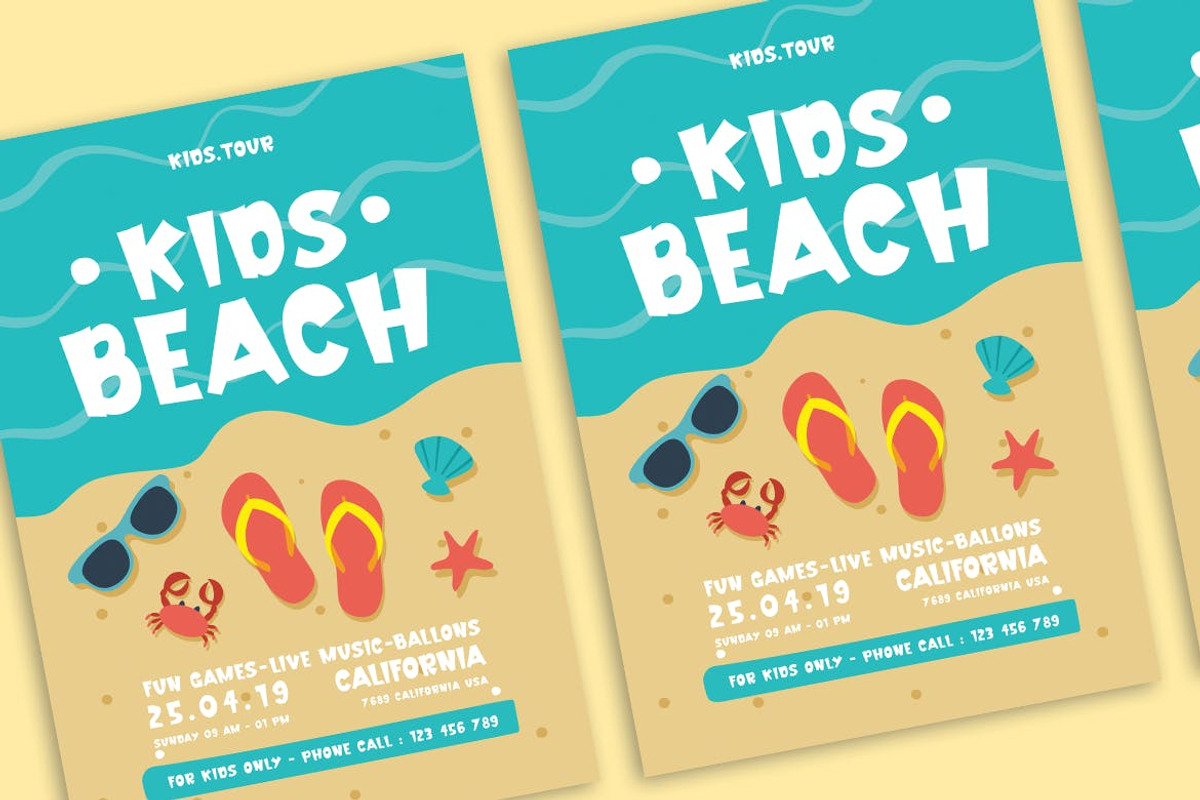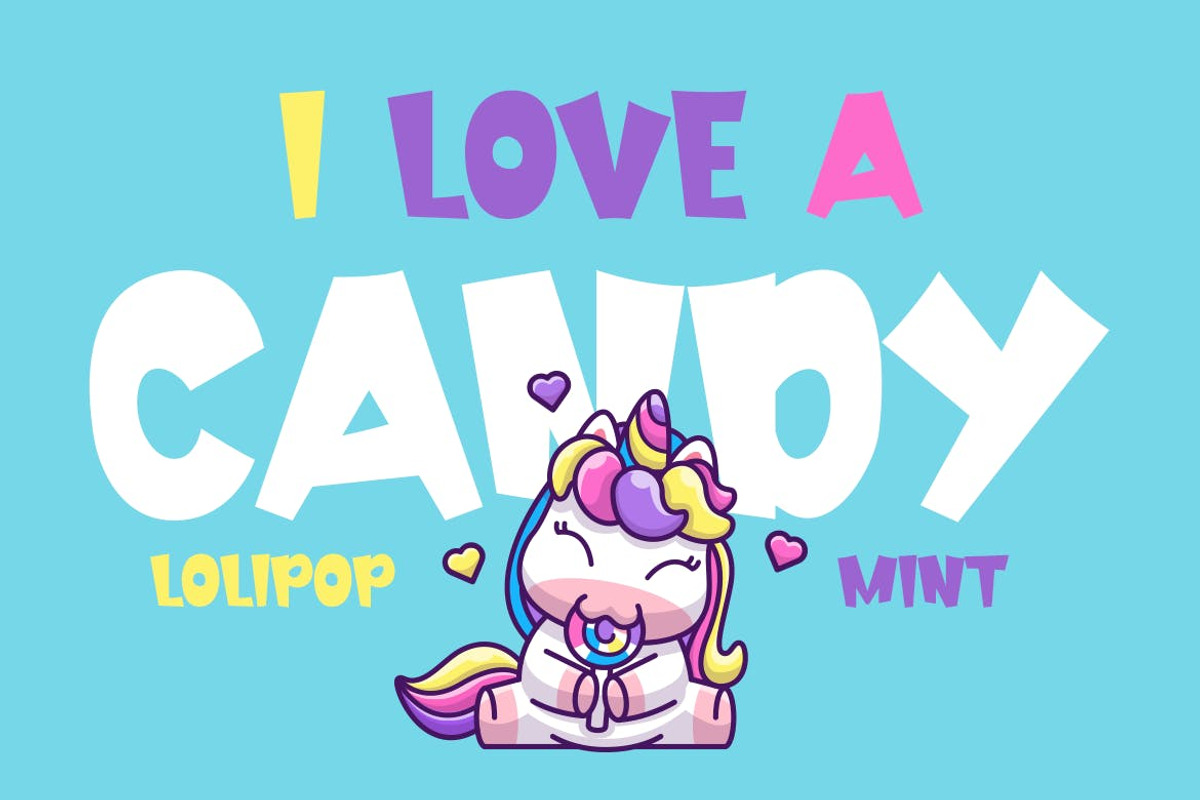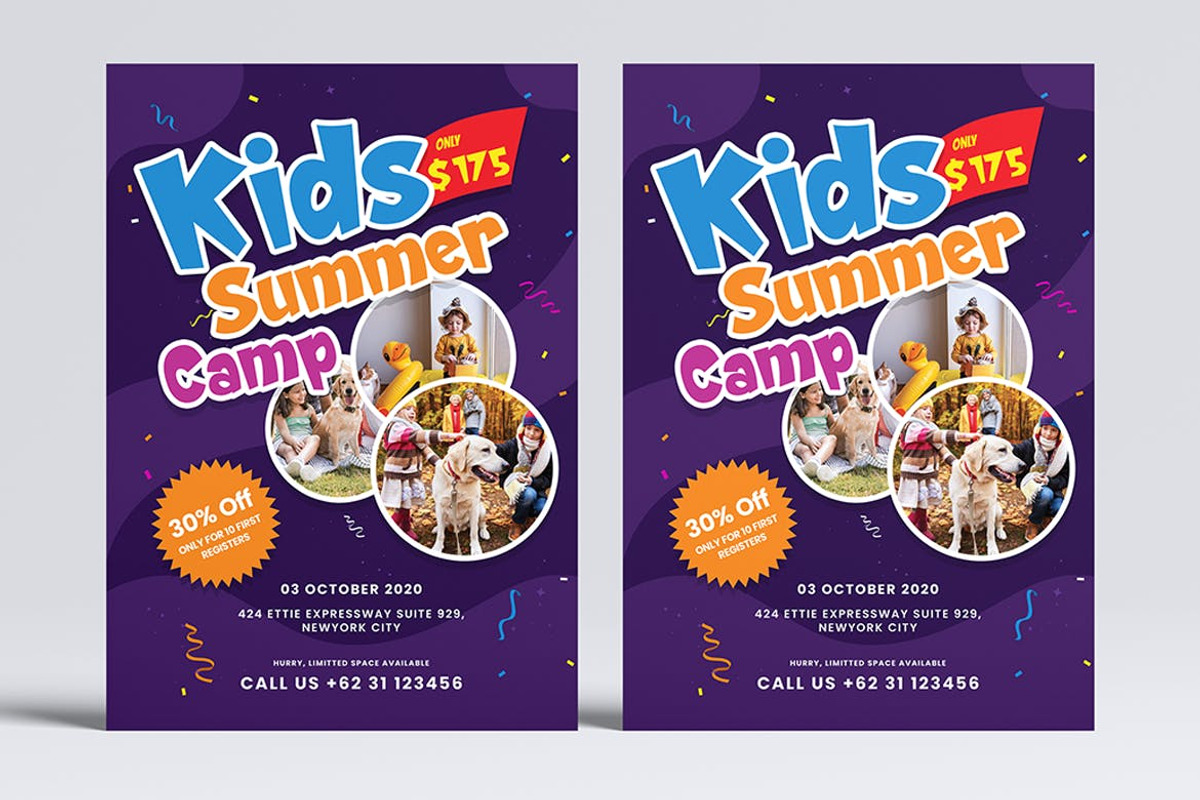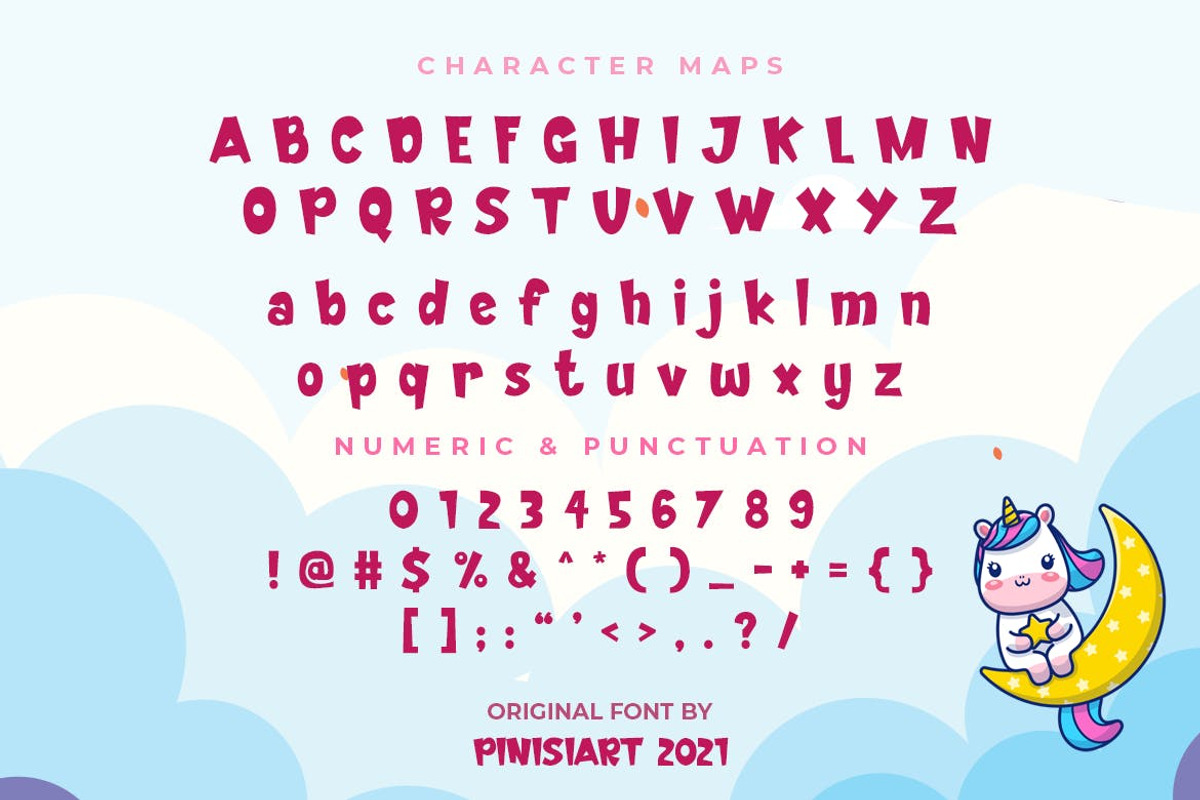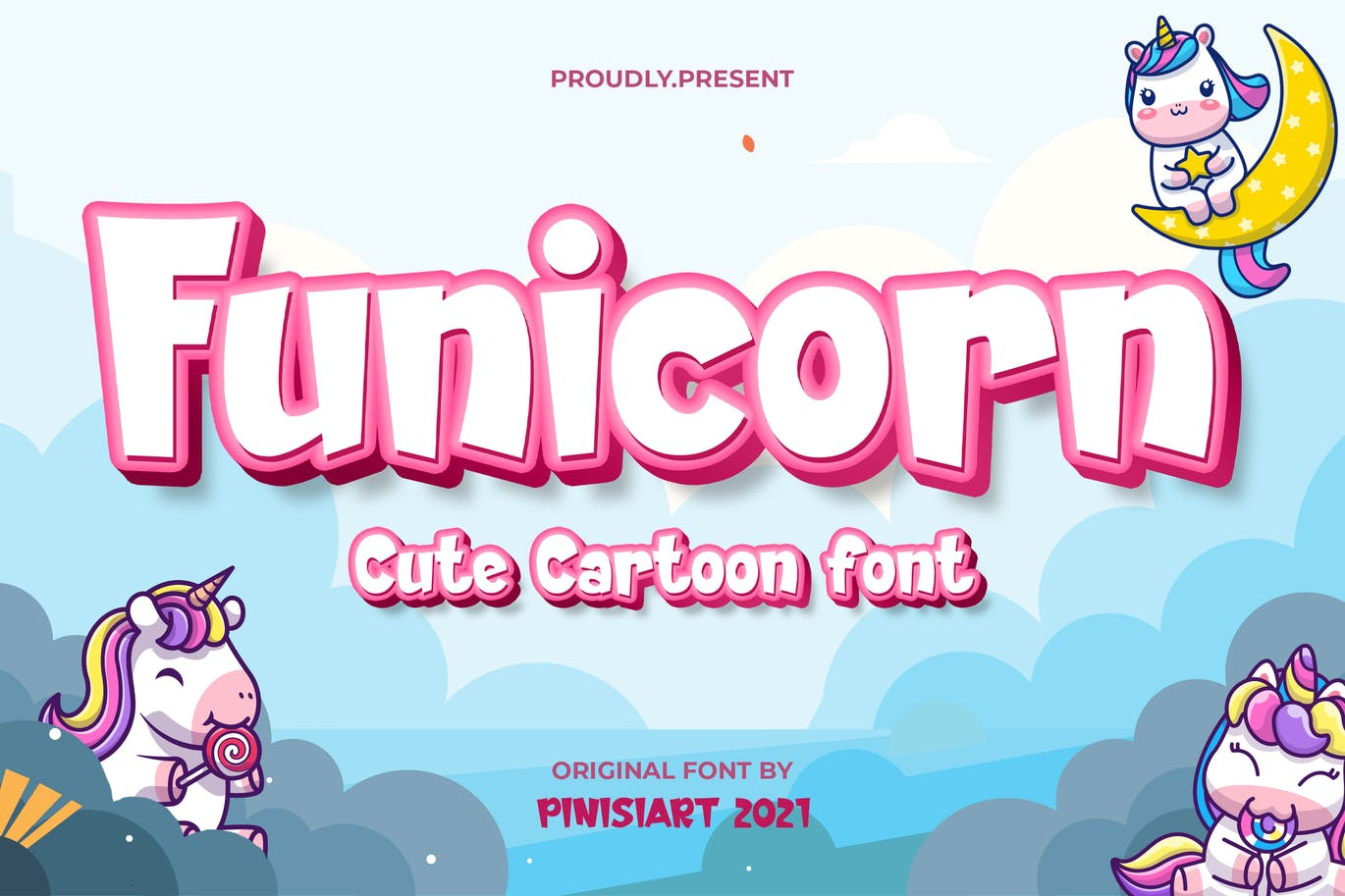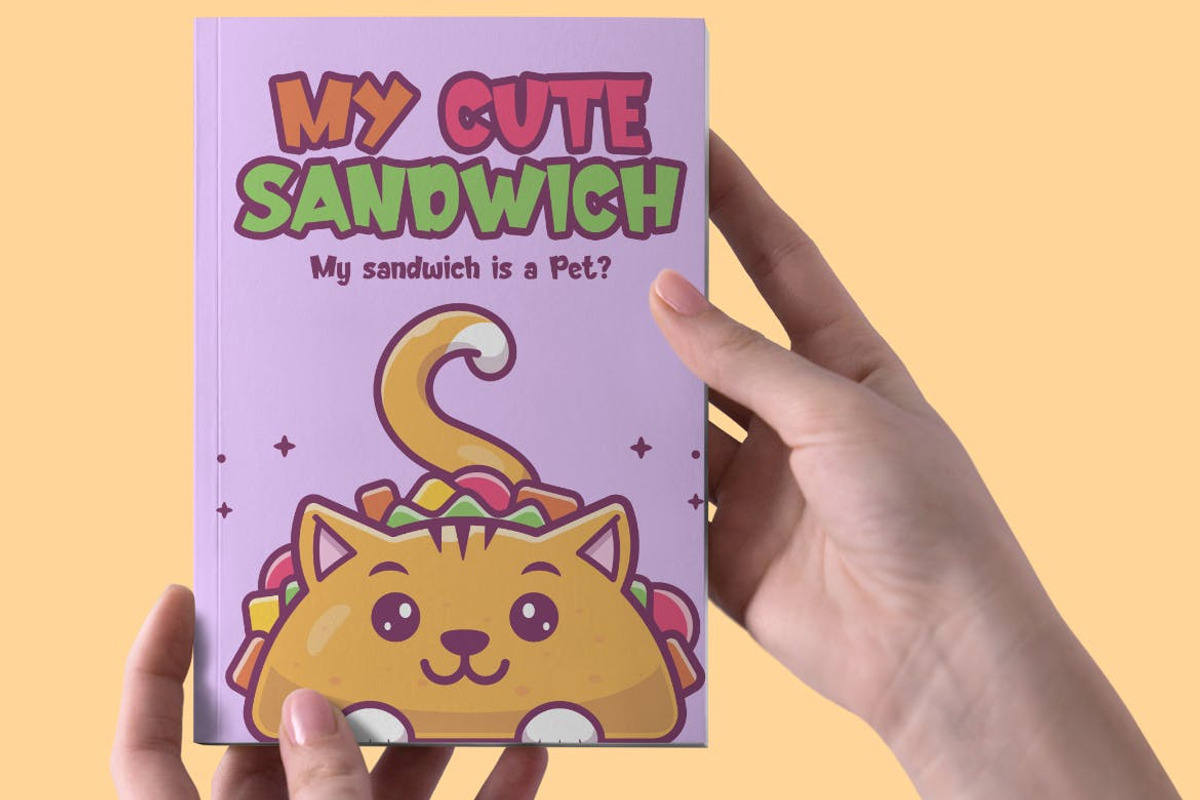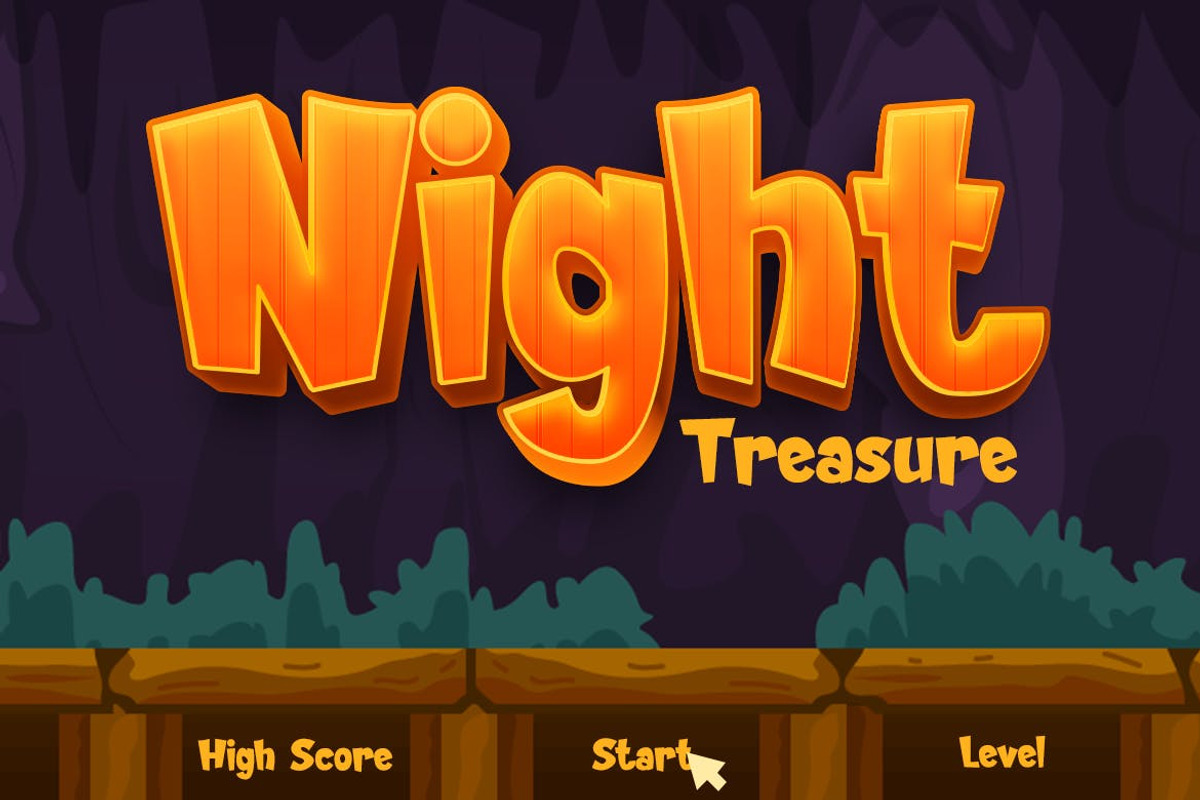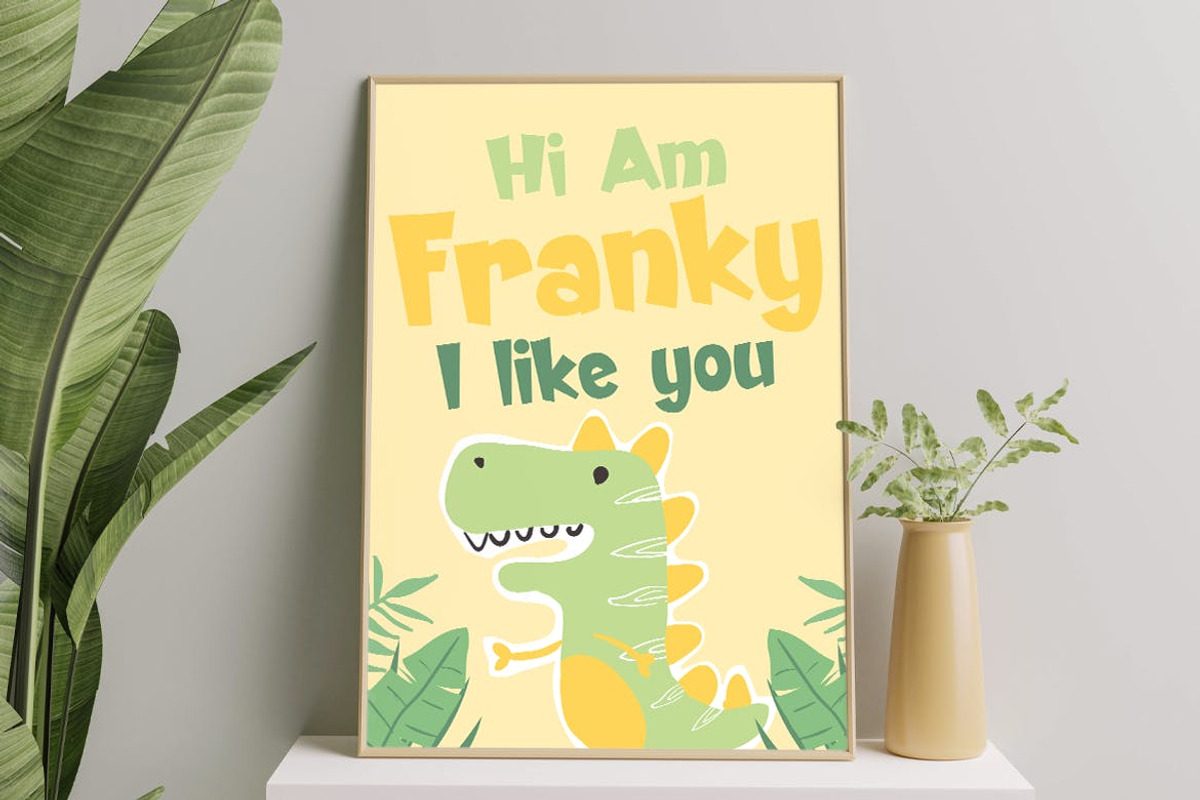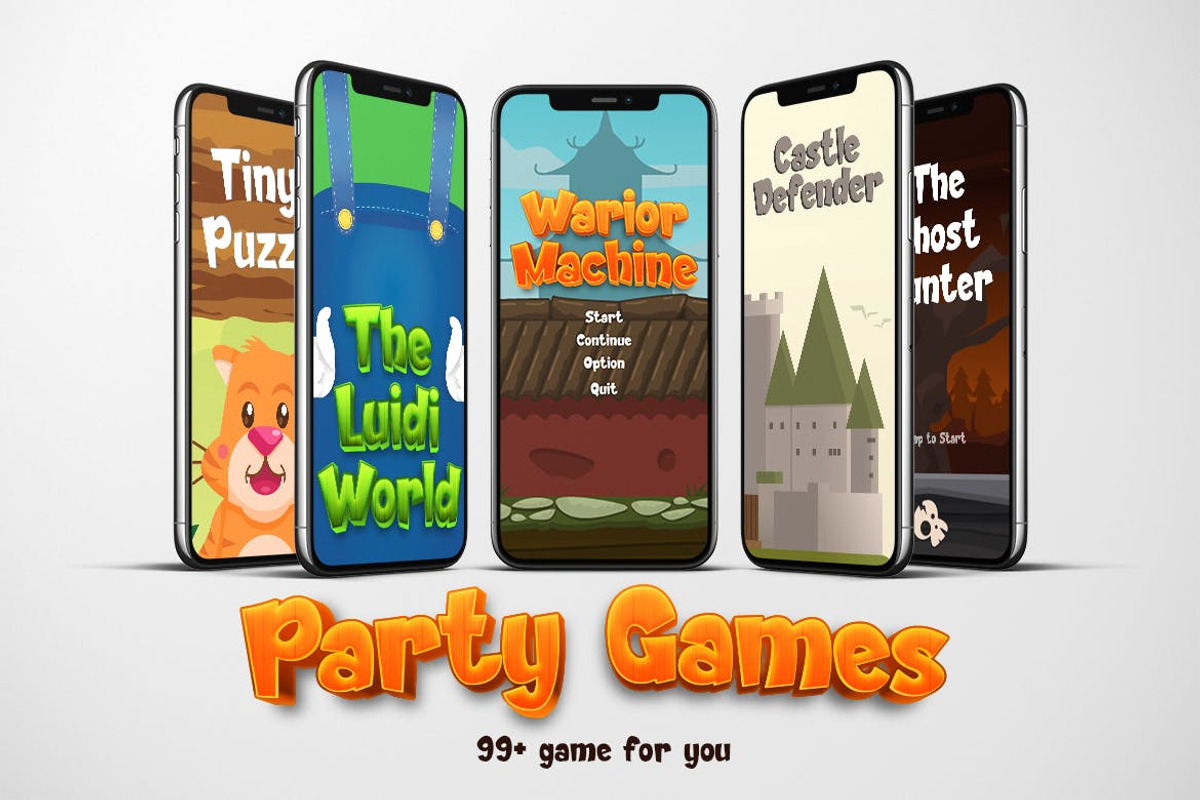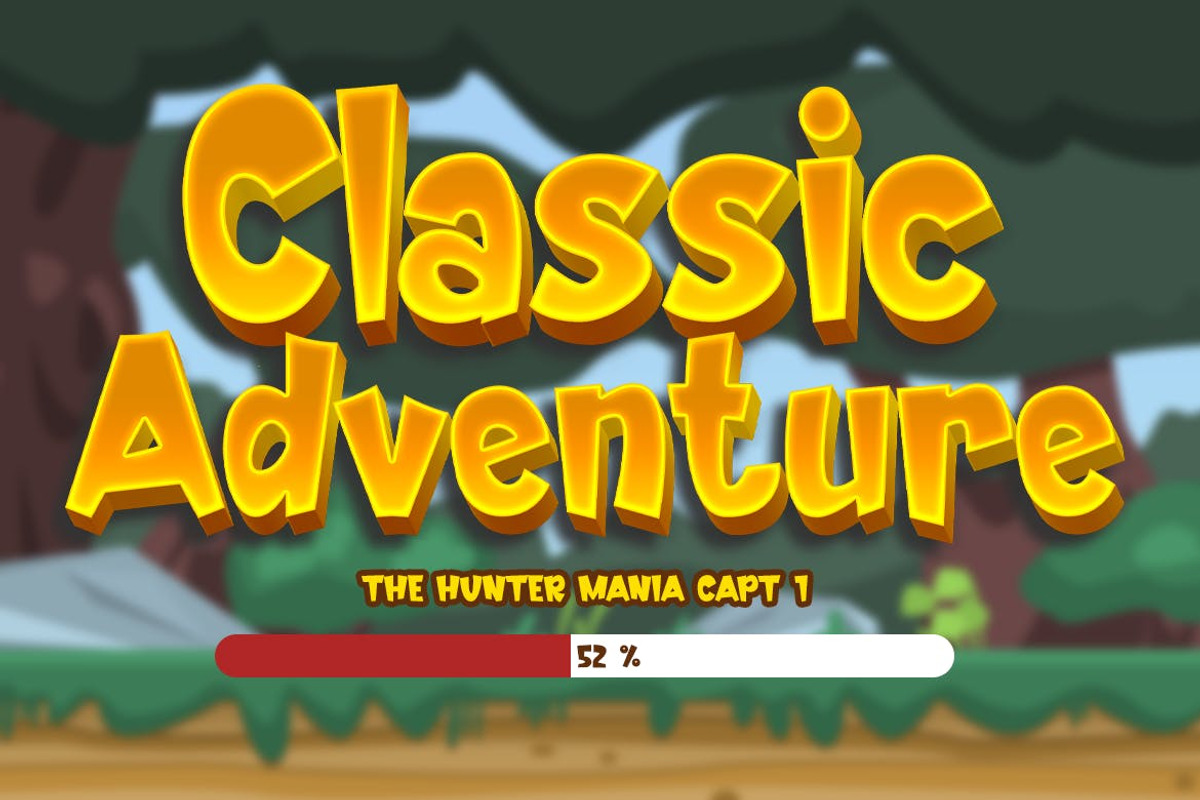
Funicorn – Cartoon Font
Cute and friendly, with a playful attitude. That’s what Funicorn will bring to your current project.
Suit perfectly for imaginary children's books market, online games, stationary, school supplies font, poster, movie title, youtube covers, youtube thumbnails, social media page covers, and so on…